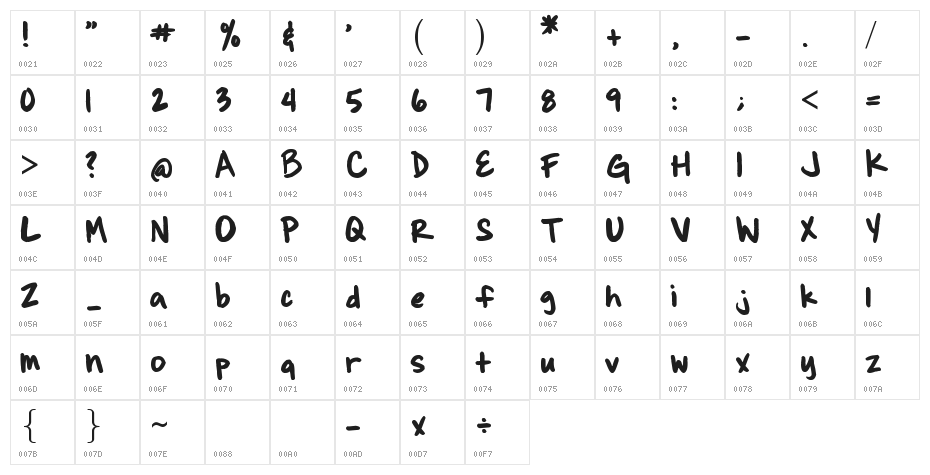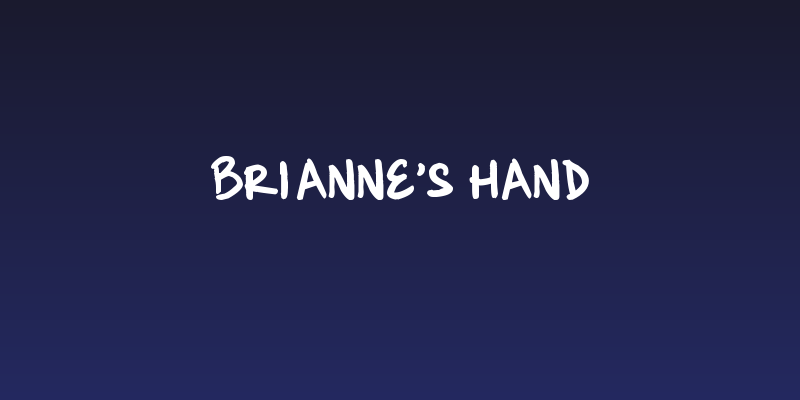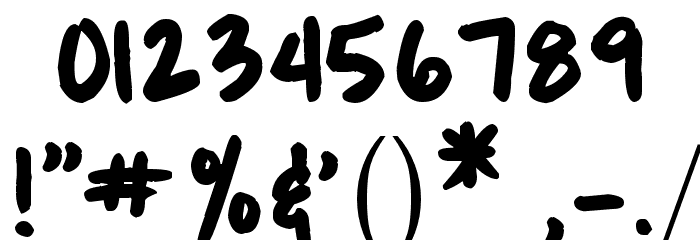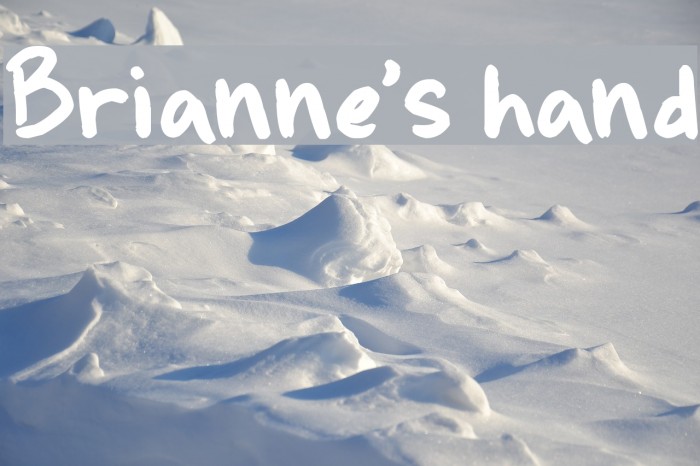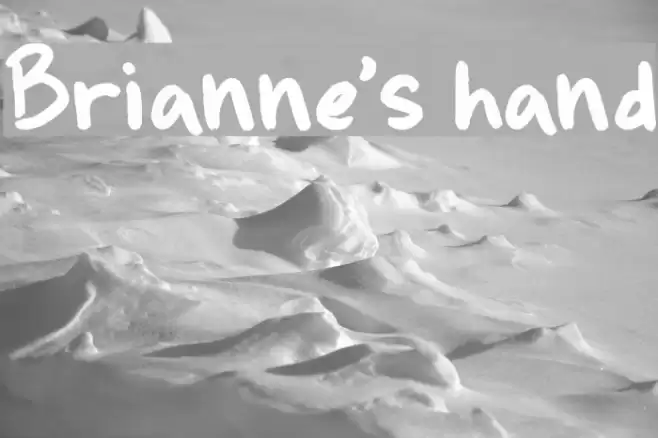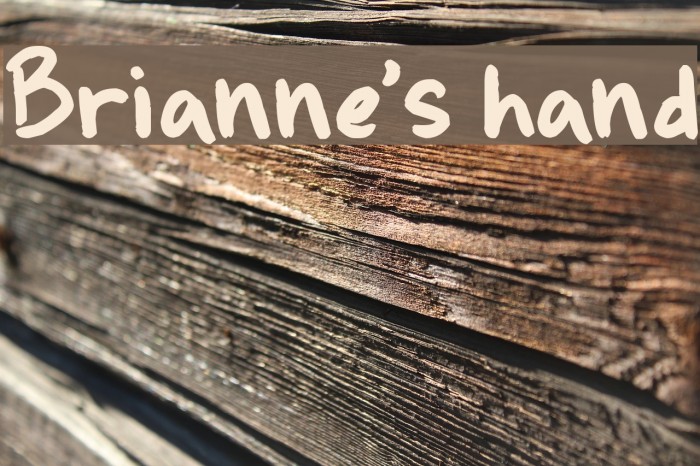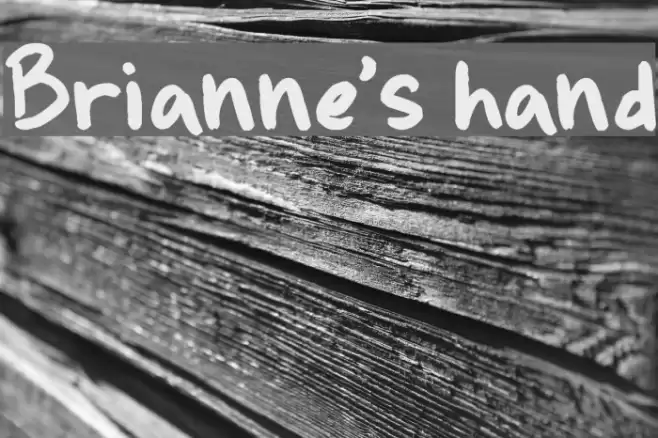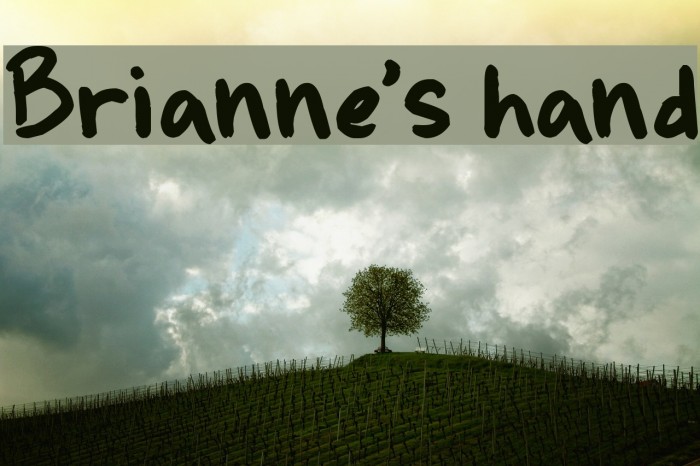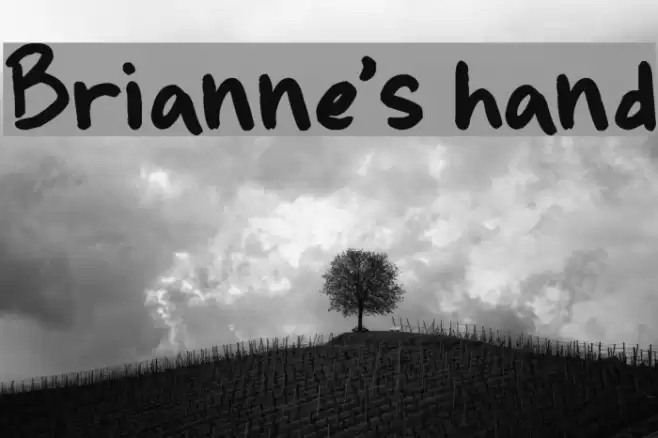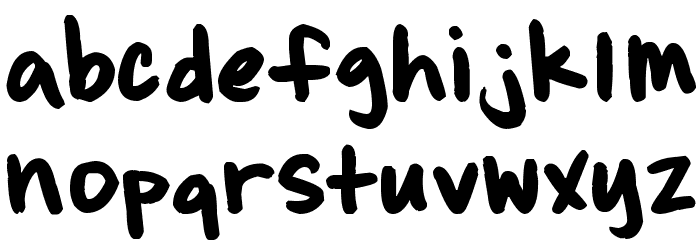
Brianne's hand Font
Brianne's hand Description
This font exudes a playful and casual handwritten style, characterized by its bold and slightly irregular strokes. The letters are crafted with a natural flow, mimicking the spontaneity of handwriting. Uppercase and lowercase letters maintain a consistent style, with rounded edges and a slight slant that adds to its informal charm. Numbers and special characters are equally expressive, ensuring a cohesive look across all text elements. The font's energetic and friendly appearance makes it ideal for projects that require a personal touch.
| Overall Style | Casual, Playful |
| Use Case | Headlines, Informal text, Creative projects |
| Proposed Projects | Ideal for greeting cards, children's books, personal blogs, and informal branding projects. |